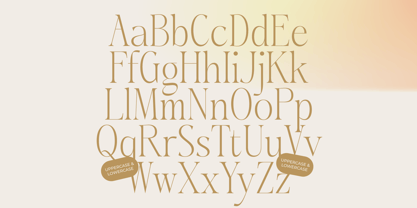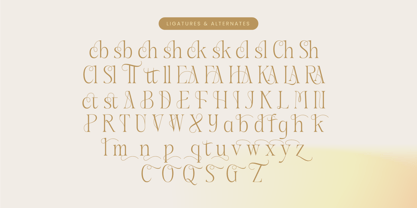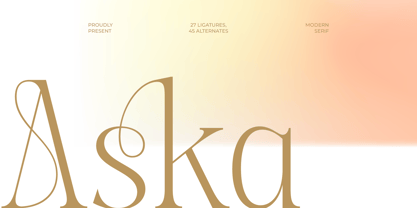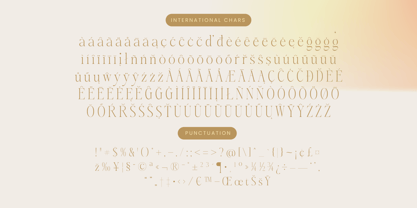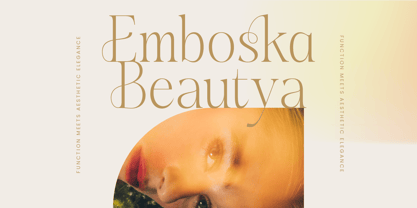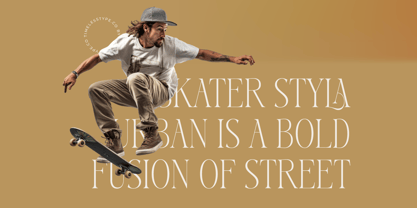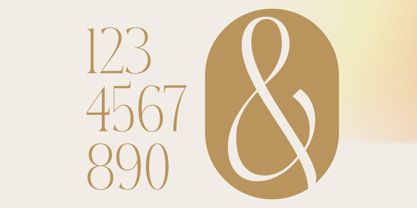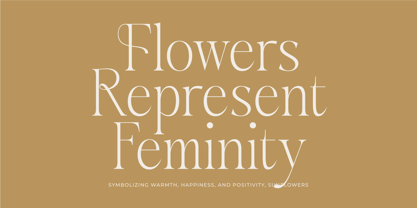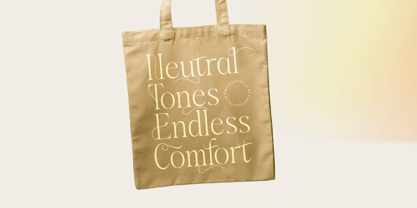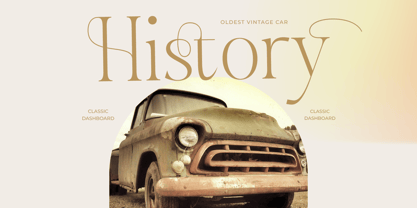
The Aska Font Family was designed by Heru Utama Putra and published by Timelesstype Studio. Aska contains 2 styles and family package options. More about this family
Aska - Modern Serif Font , from Timelesstype, Suitable for any projects such as: logos, branding projects, homeware designs, product packaging, mugs, quotes, posters, shopping bags, t-shirts, book covers, name card, invitation cards, greeting cards, label, photography, watermark, special events, and all your other luxury and beautiful projects that need a Luxury Serif taste.